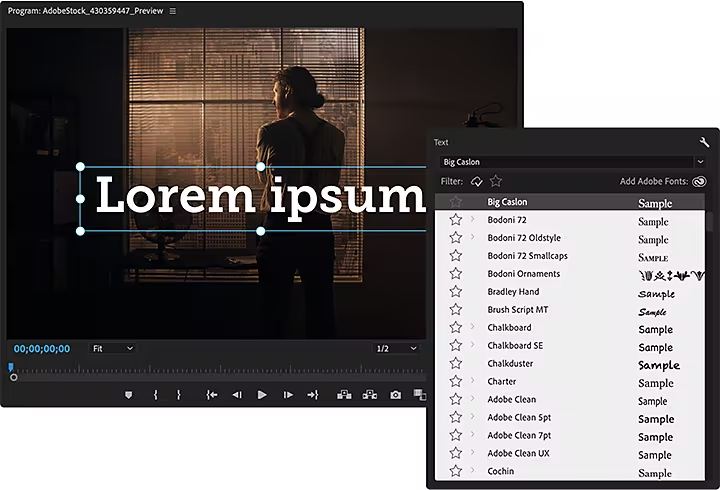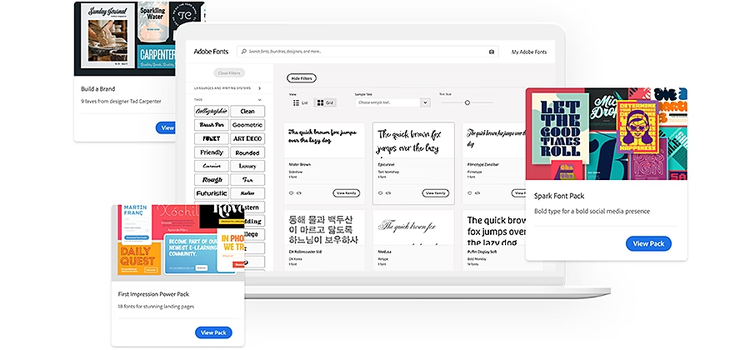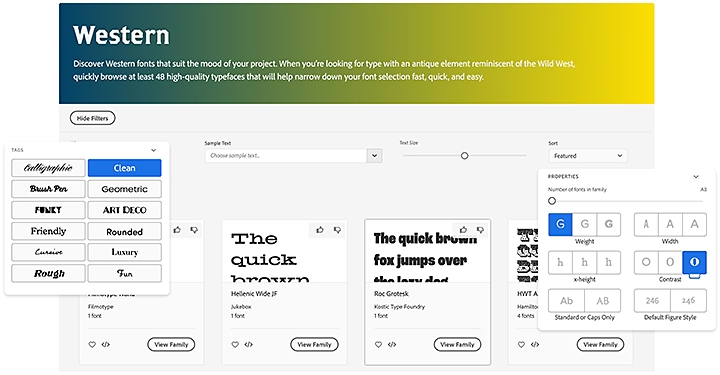
Spruce up the subtitles and overlay text in your next clip. Learn to install high-quality fonts in the industry-standard video editing app with this tutorial.
Filmmakers and videographers can impart personality into their projects such as a unique setting, the type of shots they use and the characters they choose to highlight. The style of onscreen text is a subtle — but just as effective — way to display your originality. If a font in the wild catches your eye and it becomes inspiration for part of your next video project, Premiere Pro can help you to get started.
As part of your Adobe Creative Cloud membership, you can access a catalogue of thousands of free fonts and use them across all your favourite Adobe apps, including Premiere Pro, After Effects, Acrobat and Photoshop. Can’t find what you need in Adobe Fonts? You can also install fonts from third-party websites and developers.
Adobe Fonts.
Formerly called Typekit, Adobe Fonts is a library featuring more than 14,000 free fonts at your disposal across many Adobe apps. Browse the collection to find preset fonts that match the mood of your clip.
Find and choose your own.
Customised fonts are an easy way to add a measure of distinctiveness to your work. Scour the Internet for less-common fonts that are hard to replicate. Suppose your piece is a documentary. Instead of using common sans serifs like Arial or Helvetica, try adding a warm, pleasant typeface like Merriweather for a unique look.
Need some inspiration? Download themed font packs curated for specific interests like graphic design and wedding decorations, chosen and collected in partnership with some of the creative industry’s pre-eminent typography craftspeople.